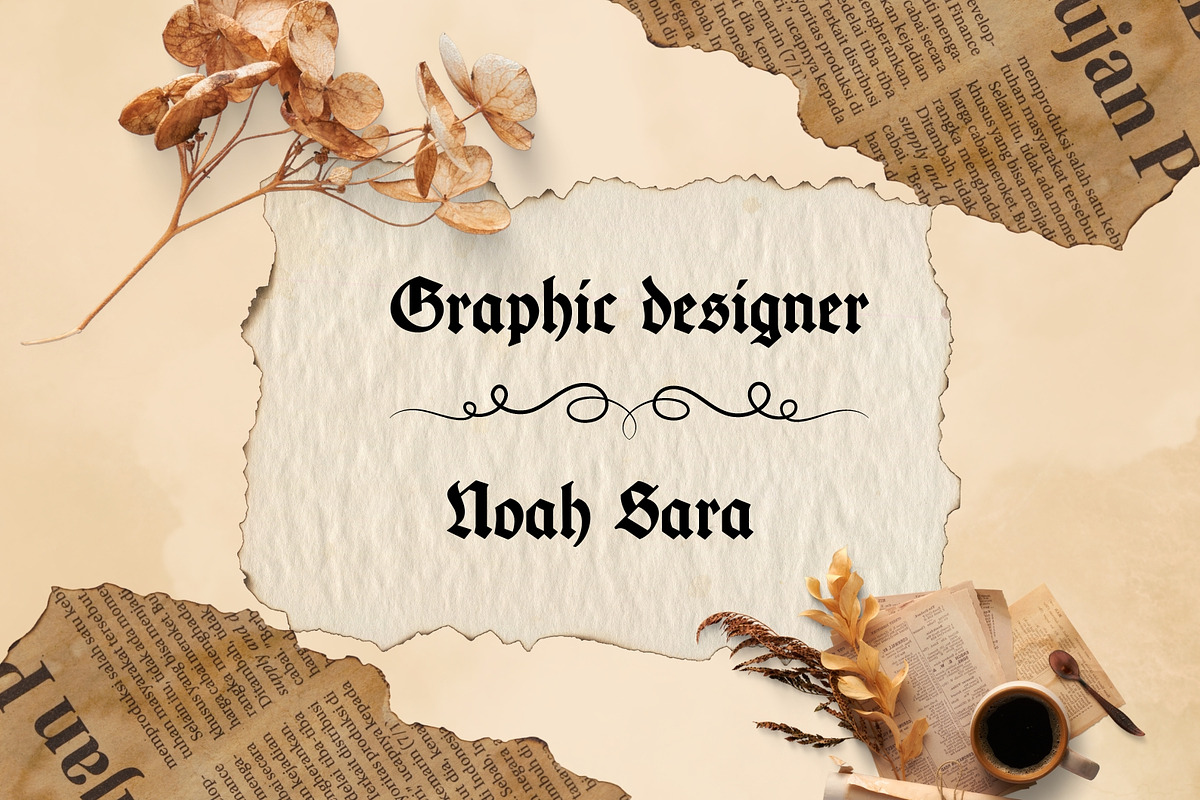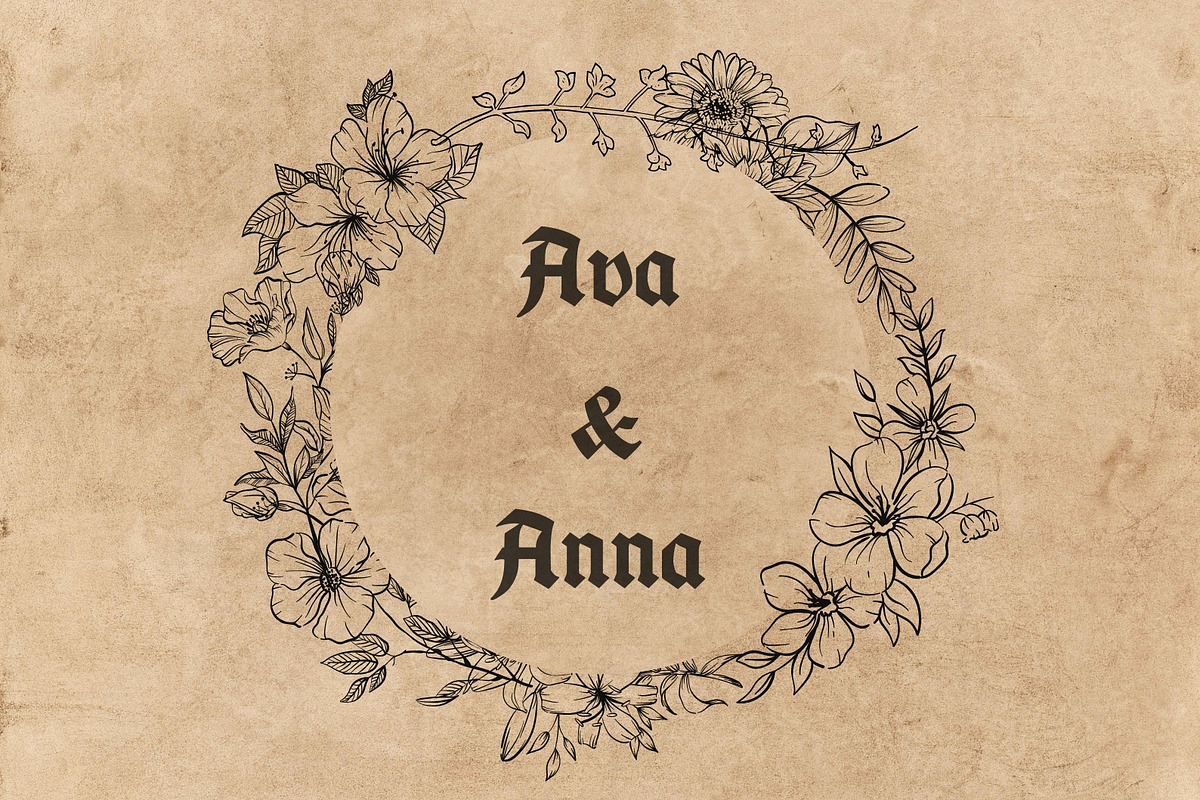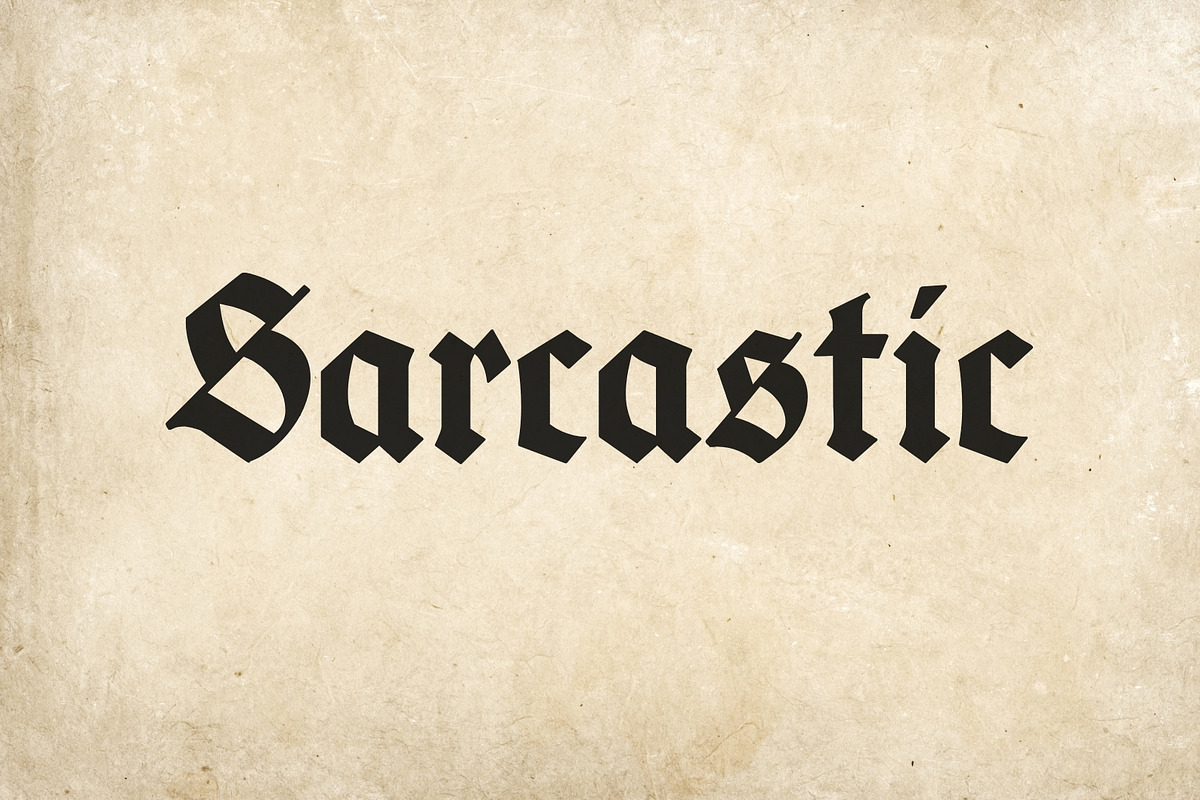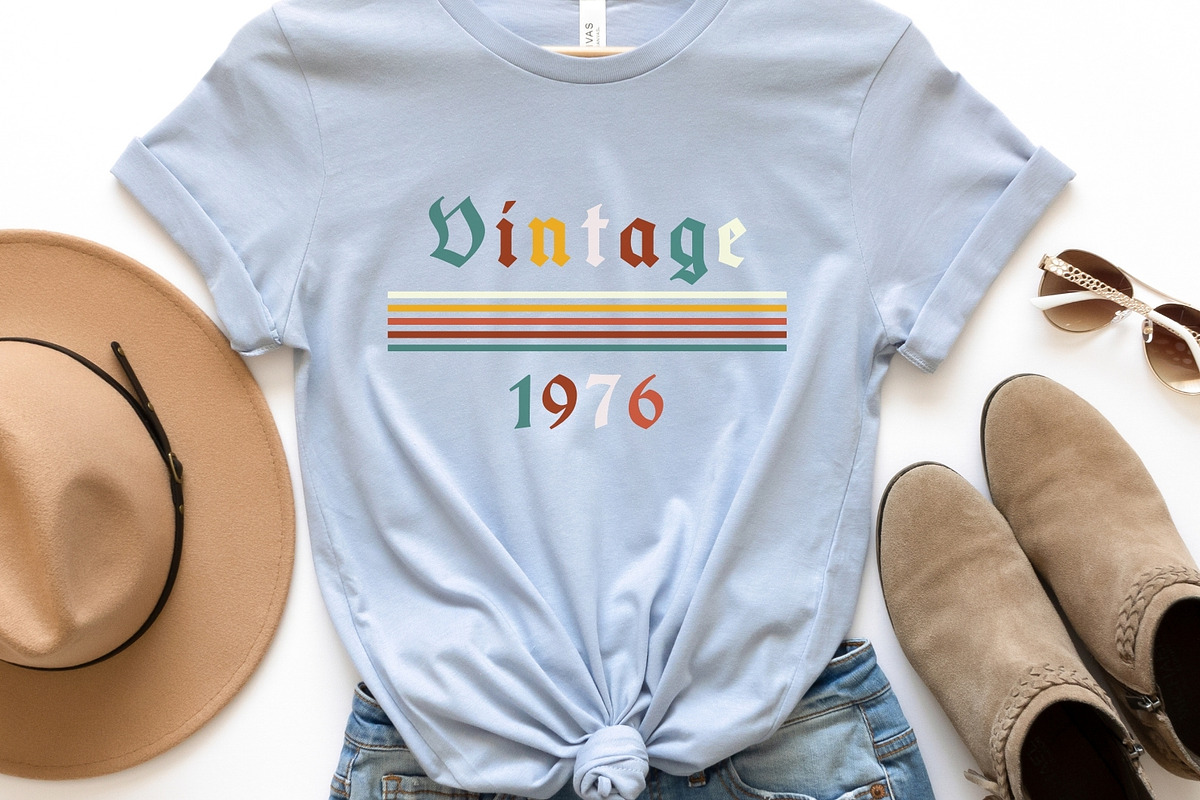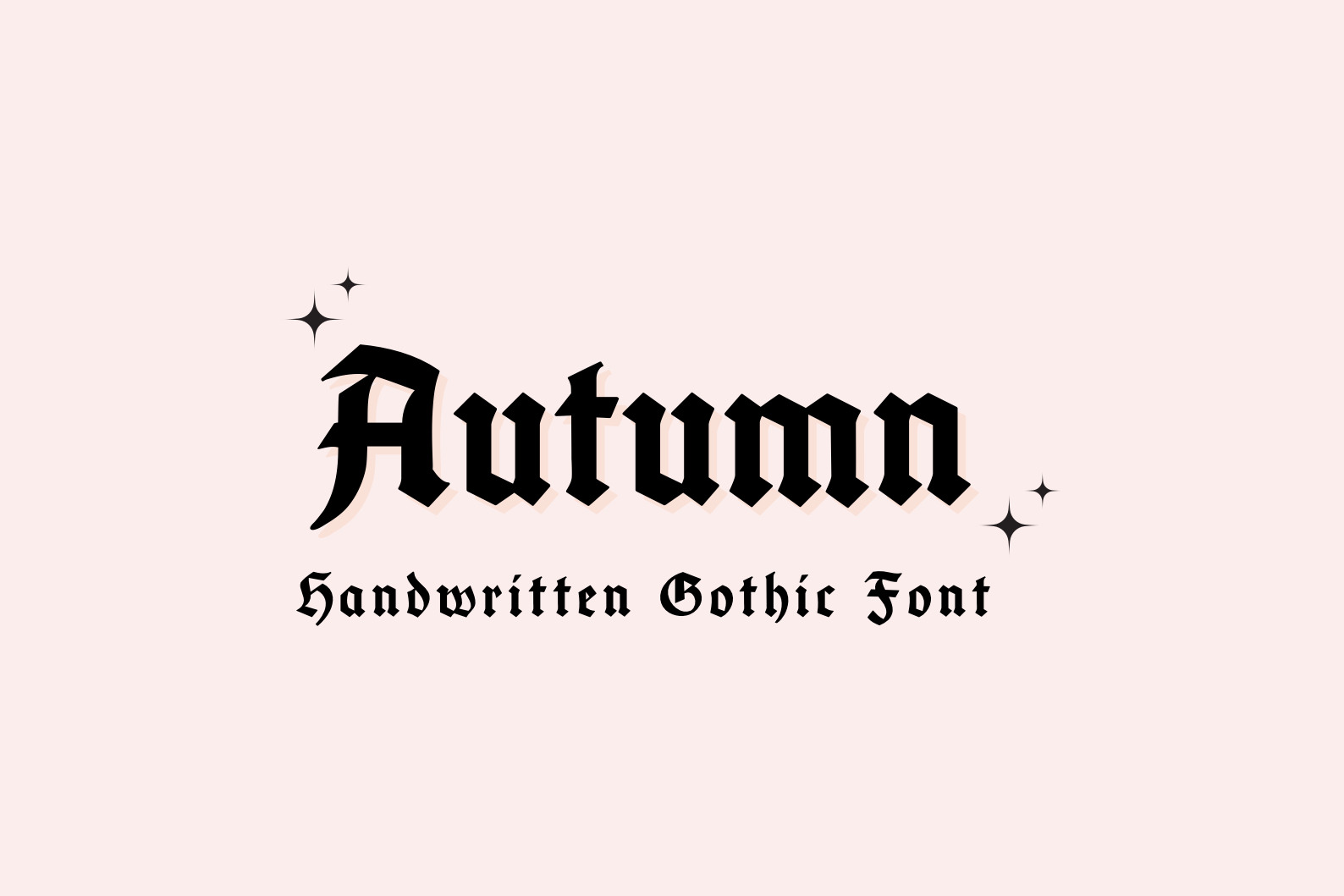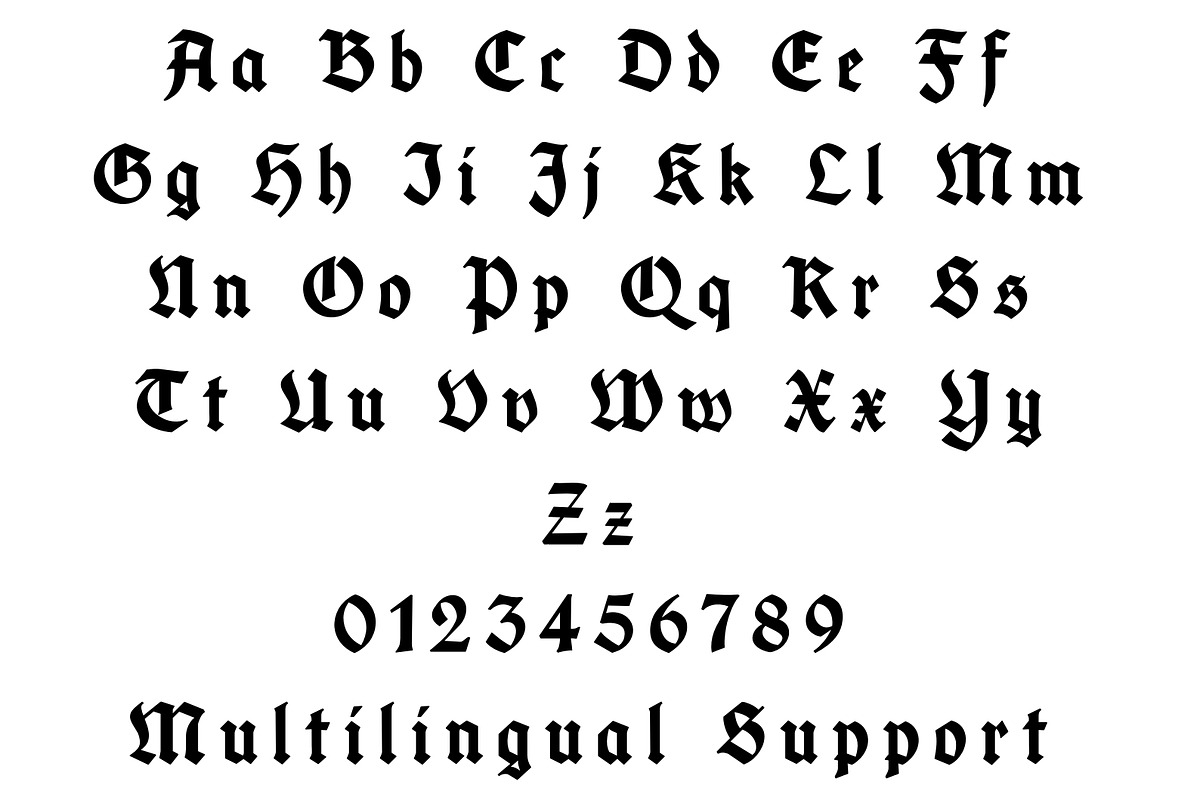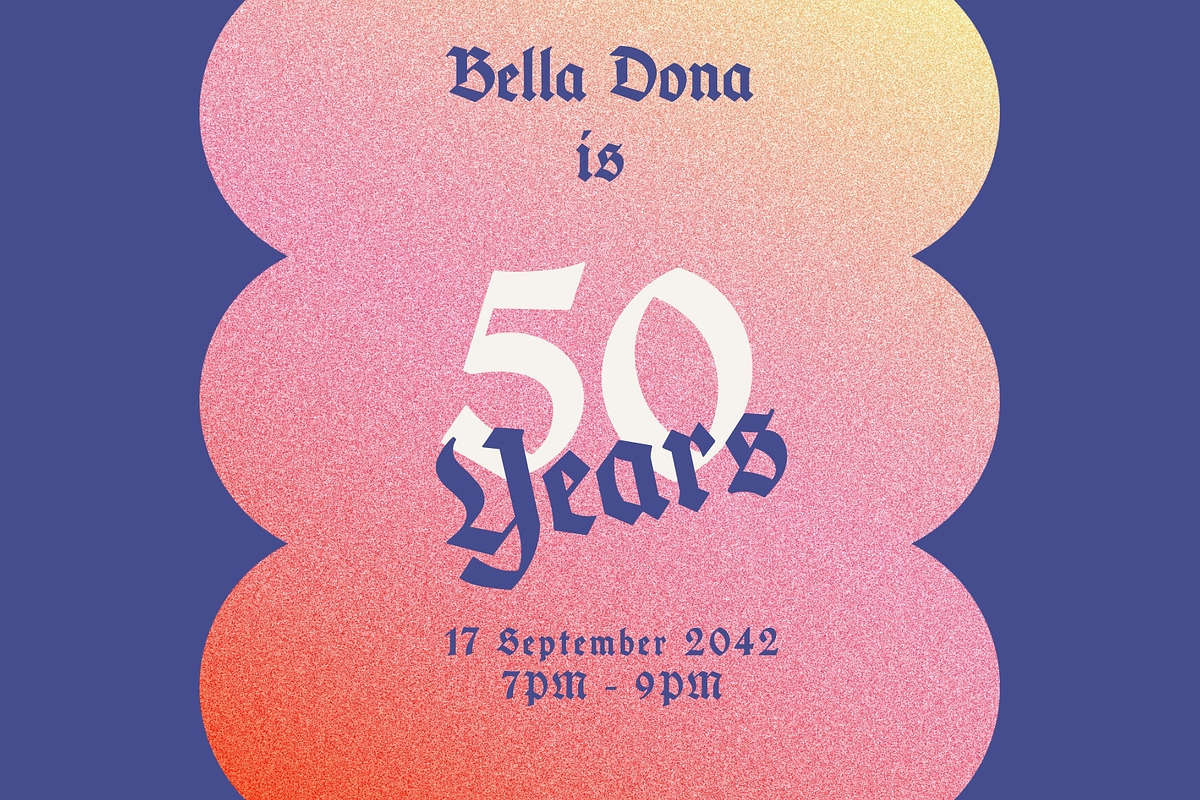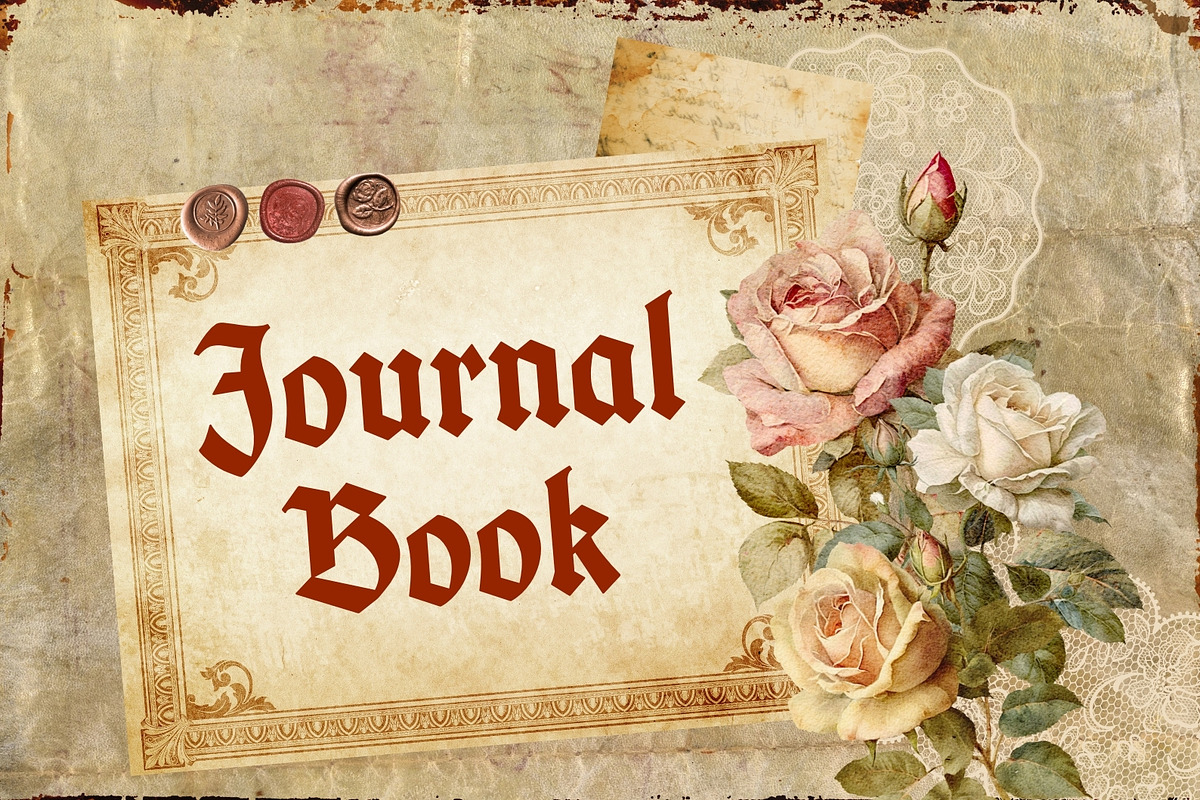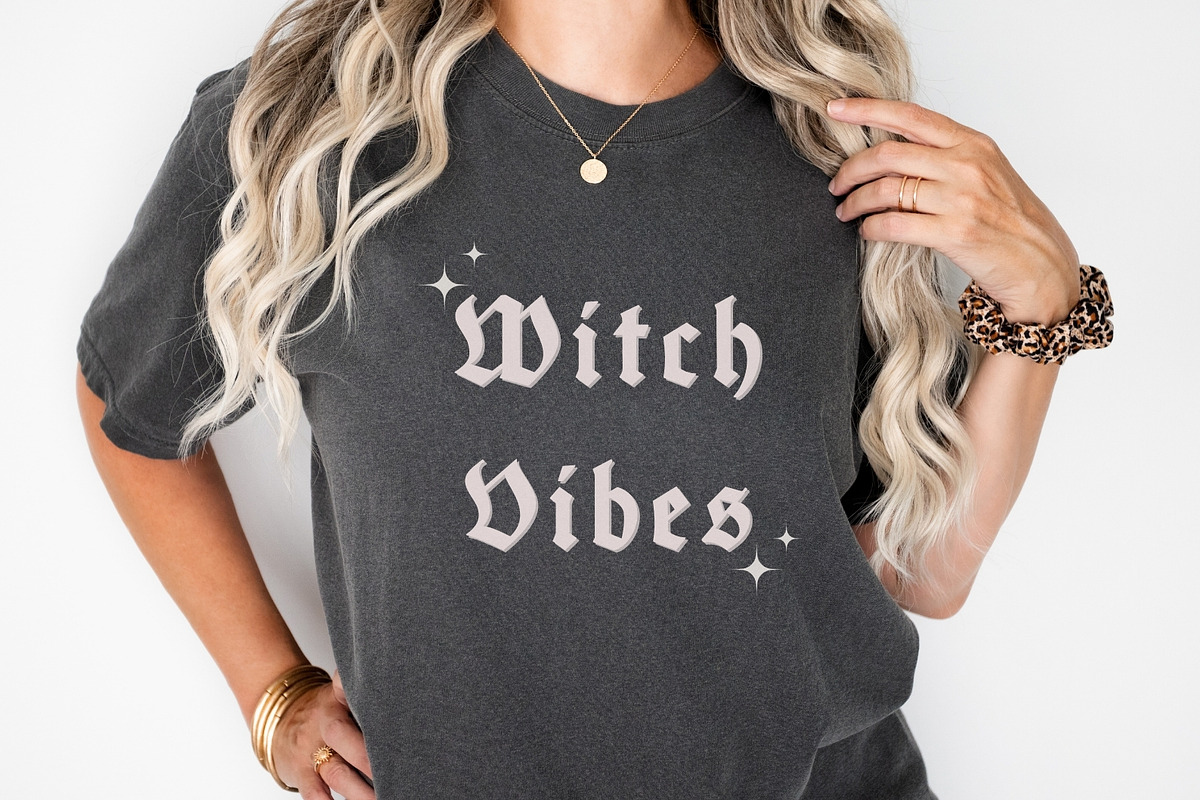
Autumn - Vintage Gothic Font
Autumn is a Gthic and Vintage handwritten font.
This font is a hand crafted & it’s perfect for Vintage crafty projects, You can also Use it for branding, decor, invitations, and more!
Features: Uppercase, Lowercase, Numbers & punctuation & Multilingual support.